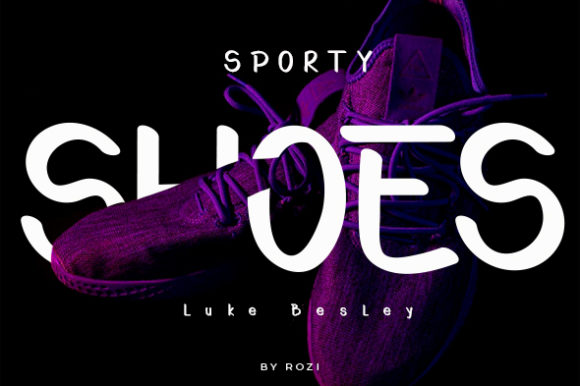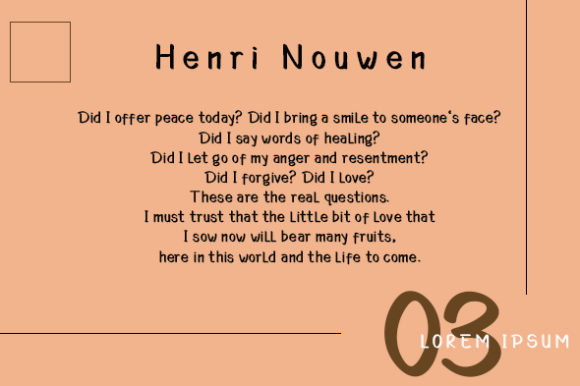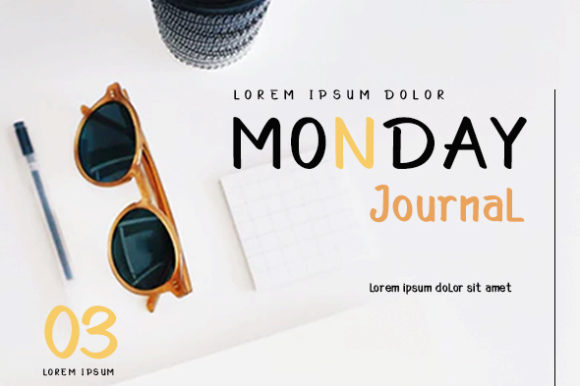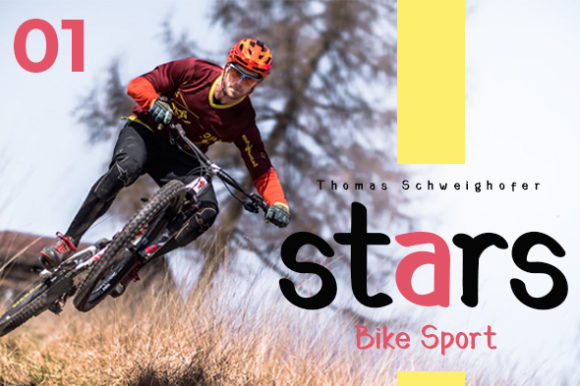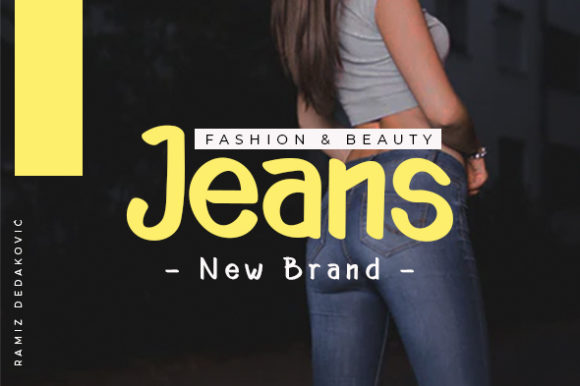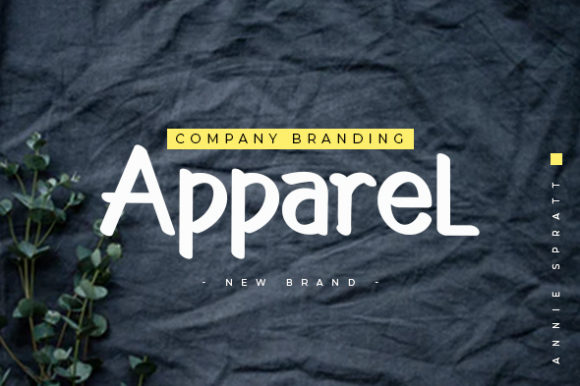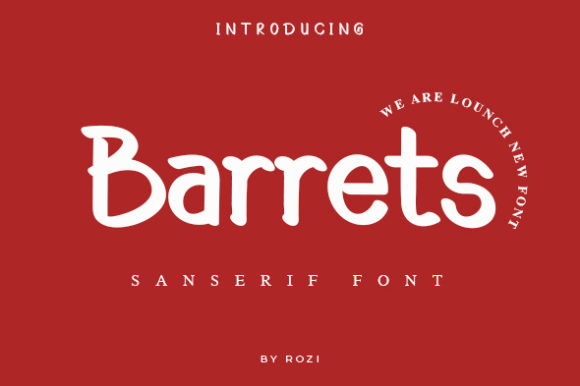
Discover the Elegance of Barrets Font: A Simple yet Powerful Sans Serif Font
When it comes to typography, the right font can make all the difference in the world. For designers and crafters looking for a font that exudes simplicity, cleanliness, and elegance, Barrets Font is an excellent choice. This sans serif font has been gaining popularity for its undeniably clean feel and beautiful arrangement of letters, making it perfect for both formal and non-formal designs.
What is Barrets Font?
Barrets Font is a simple and casual sans serif font that has been designed to provide a clean and minimalist look to any design project. Its neat and organized arrangement of letters makes it a versatile font that can be used in a wide range of applications, from digital designs to print materials.
Key Features of Barrets Font
- Clean and Minimalist Design: Barrets Font boasts a clean and minimalist design that makes it perfect for designers who want to create a simple yet elegant look.
- Sans Serif: As a sans serif font, Barrets Font does not have serifs, which makes it ideal for digital designs and small text sizes.
- Beautiful Arrangement of Letters: The font features a beautiful arrangement of letters that are evenly spaced and proportioned, making it easy to read and visually appealing.
- Versatile: Barrets Font can be used in both formal and non-formal designs, making it a great addition to any designer’s font library.
Benefits of Using Barrets Font
There are several benefits to using Barrets Font in your design projects. Some of the most significant advantages include:
- Ease of Readability: The clean and simple design of Barrets Font makes it easy to read, even at small text sizes.
- Flexibility: Barrets Font can be used in a wide range of applications, from digital designs to print materials, making it a versatile font that can be used in various design projects.
- Professional Look: The elegant design of Barrets Font gives any design project a professional look, making it perfect for designers who want to create a sophisticated and polished look.
How to Use Barrets Font
Using Barrets Font in your design projects is easy. Here are a few tips to get you started:
- Pair it with Other Fonts: Barrets Font can be paired with other fonts to create a unique and visually appealing look.
- Use it for Headings and Body Text: Barrets Font can be used for both headings and body text, making it a great choice for designers who want to create a cohesive look.
- Experiment with Different Sizes and Colors: Barrets Font can be used in various sizes and colors, making it a versatile font that can be used in different design applications.
In conclusion, Barrets Font is a simple yet powerful sans serif font that is perfect for designers and crafters looking for a clean and elegant font. Its beautiful arrangement of letters, versatility, and ease of readability make it a great addition to any designer’s font library. Whether you’re working on a formal or non-formal design project, Barrets Font is a great choice that can help you create a professional and polished look.